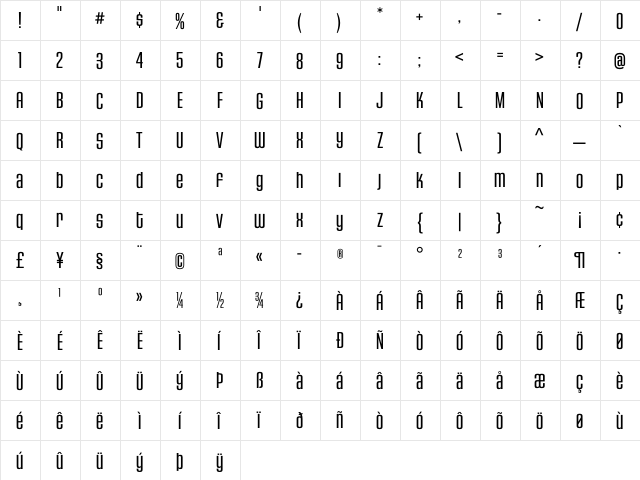
HouseGothicHG23Cond LIGHT3
| Designer | Allen Mercer/Tal Leming |
Design Context for HouseGothicHG23Cond Typeface
HouseGothicHG23Cond takes a clean, functional approach — its unadorned letterforms prioritise legibility and work reliably across screen and print environments. Its slender proportions lend an understated elegance to any composition. The condensed width makes it efficient for tight spaces without sacrificing legibility.
Ideal for fashion and beauty branding, minimal editorial layouts, and premium digital experiences.
Font Pairing: Pair HouseGothicHG23Cond with a medium or bold serif for headlines — the weight contrast creates an elegant, high-end feel.
Pro Tip: Try HouseGothicHG23Cond in all-caps with moderate tracking for navigation and label copy — it performs well in systematic UI contexts.